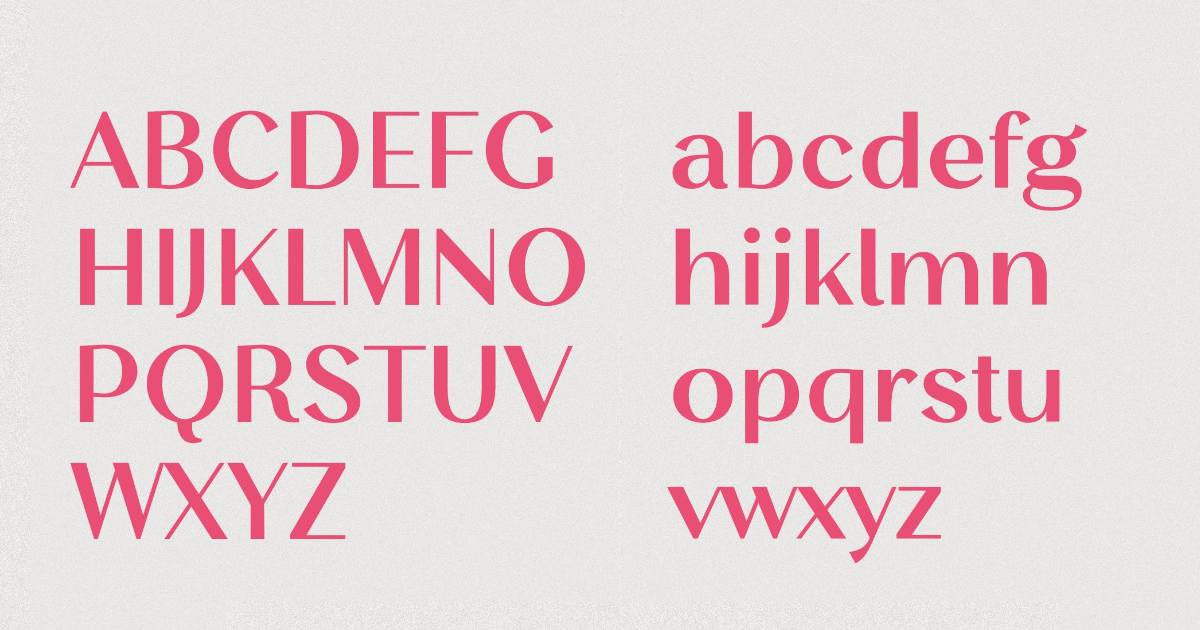
A behind the scenes look at Stornoway and what sets it apart from the high contrast sans serifs. Rooted in the elegance of Scotch Roman typefaces and named after a Scottish town, Stornoway is a sans-serif that merges historical inspiration with modern design.
Scotch Roman typefaces have always appealed to me—I think they have a nice balance between rationality and humanist characteristics. These transitional serifs have features like a vertical axis, and sharp regular serifs—kinda like they were inspired by the crispness of Bodoni, but retained more of their relationship to the humanist forms that came before.
I started by looking at some old specimens of Caledonia, then I put them away and did some sketches of what I had seen. I was not aiming for a direct revival, but was instead aiming to capture the combination of rationality and humanist features. I also knew I wanted to make a sans serif design, so I left the serifs behind.
The name also comes from the story of Caledonia. I was reading about how Dwiggins named his Scotch Roman typeface “Caledonia” because it was the Roman name for Scotland and his inspiration was mainly from earlier Scotch Roman typefaces. I decided to also choose a name from Scotland and went with a town in Northern Scotland that some of my ancestors came from—Stornoway.
I started designing Stornoway during Fontathon, a type design live-streaming event held in February 2024. Over my 4 hours of live-streaming time, I did a speed-run of the upper and lowercase, which resulted in an alphabet that was pretty close to the final letterforms. This gave me a good sense of the direction I wanted to go in but I still had a lot of work to do to add all the styles, language support, and features that I include in my typefaces.
I decided to track my time for this typeface to get a better sense of how long each part was taking and counted up 200 hours spread over nine months.
When drawing the double story ‘g’ I fell in love with the schwoopy ear that was happening in the New Caledonia drawings. I ended up with an up-turned, flared shape for the ‘g’ ear and had taken that flare and applied it to a bunch of other terminals that would normally have a ball or tear-drop shaped terminal if this was a serif design. I felt like this brought in a hint of the pen and added a bit more humanist flair to the design.
I really wanted the italics to be true italics that were modelled more closely off of handwriting structures. I wanted to balance modern shapes with making sure they created a good amount of sparkliness in the text.
There were also challenges with letterform structure because I was making this as a variable font and needed to make sure the simple upright shapes could transition into their italic version. This means that there are extra points and handles in the upright version of some letters so that it can interpolate properly and change into an italic version of the letter.
I love making wide ranges of weights, so I included monoline all the way up to chonky. With the high contrast styles, the thin parts of the letters actually don’t change their weight, only the thick parts change as the weight changes. This creates a nice visual consistency through the weights.
The idea behind the low contrast styles was to create styles that could work in body text situations and make the overall family more useful. But I found that the chonky end of this style was also really interesting for display situations. I decided to make this a contrast axis rather than an optical size axis because I wanted to include the extremely heavy end of the drawings (which are definitely not great for small text).
Stornoway was a great opportunity to explore what a modern Scotch Roman could look like. I don’t know that the final result would necessarily be categorized as a Scotch Roman but it’s a really nice high contrast sans serif. I was also pleasantly surprised with how well the low contrast styles work in text situations and ended up using the Stornoway family as the main font across my new website.